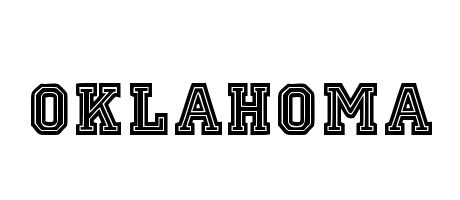
Oklahoma
Oklahoma Collegiate: This bold, strong font screams American college spirit. Its thick, double-lined block letters evoke a vintage varsity feel, reminiscent of athletic jerseys and championship banners. The consistent stroke weight and clean lines project confidence and tradition. It's a font that embodies strength and school pride.